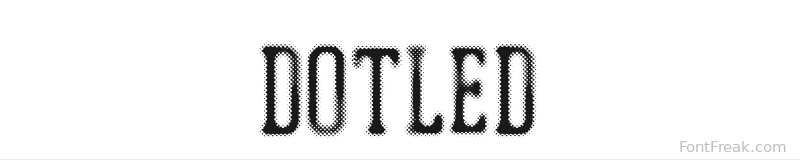
DOTLED
About DOTLED
Introducing the DOTLED font by Billy Argel Fonts, a captivating display typeface that exudes a unique personality. This decorative font is characterized by its playful dotted design, which creates an eye-catching visual effect. The DOTLED font features a consistent stroke weight that adds to its charm, while the spacing between characters is carefully balanced, ensuring readability without sacrificing style. The dots give the font a retro and whimsical feel, making it a standout choice for various creative projects.
Ideal for personal use, the DOTLED font is perfect for wedding invitations, where its distinctive style can add a touch of fun and originality. It also shines in designs for movie posters, where its bold appearance can capture attention and convey a sense of excitement. Restaurant menus can benefit from this font as well, providing a lively and inviting look that enhances the dining experience. Additionally, content creators can use the DOTLED font in social media graphics, giving their posts a unique flair that engages their audience.
The primary target audience for the DOTLED font includes graphic designers, small business owners, and content creators who are looking to elevate their projects with a playful yet professional touch. Its versatility allows for creative expression across a wide range of applications.
What sets the DOTLED font apart is its ability to merge a sense of nostalgia with modern design trends. This unique combination makes it an excellent choice for anyone seeking to make a memorable impact through typography. With the DOTLED font free download, you can easily incorporate this delightful typeface into your design toolkit and bring your creative visions to life.